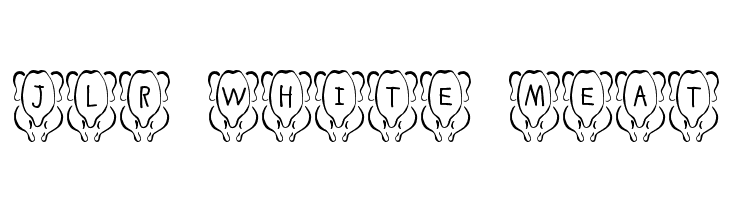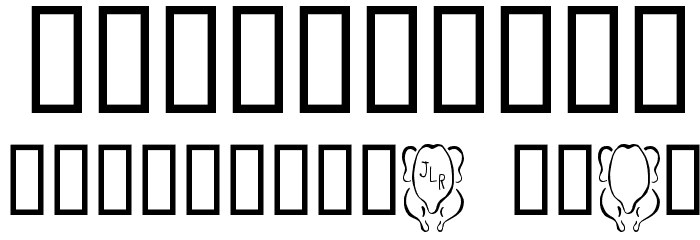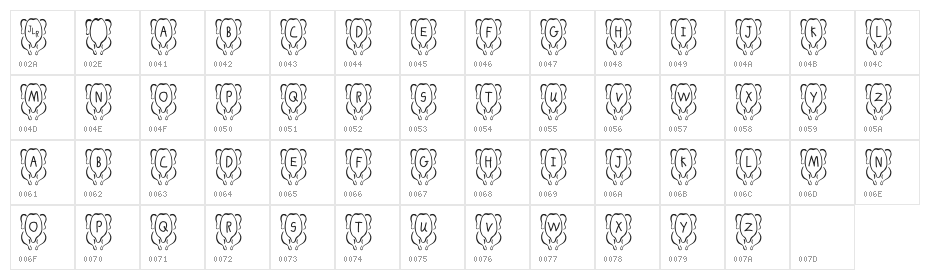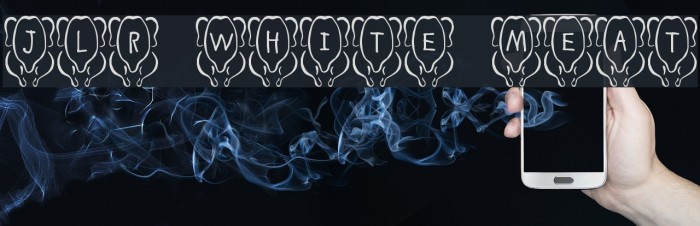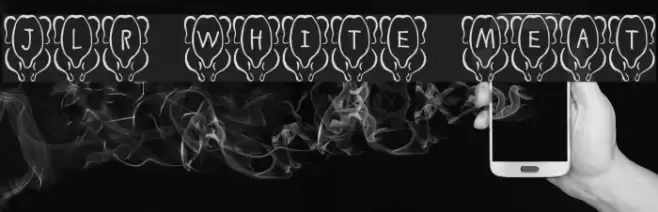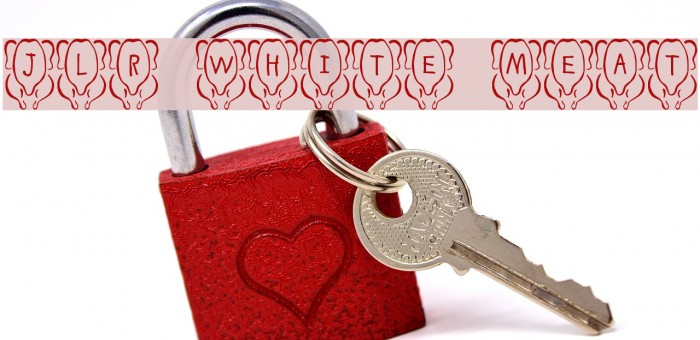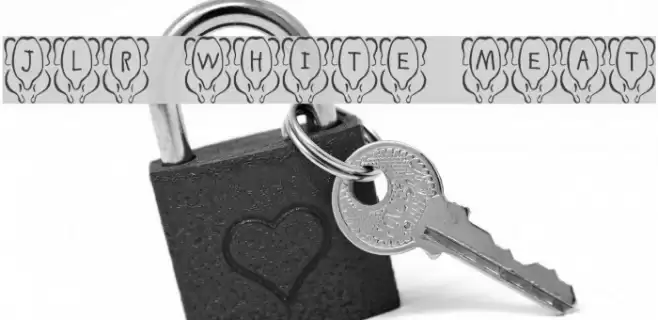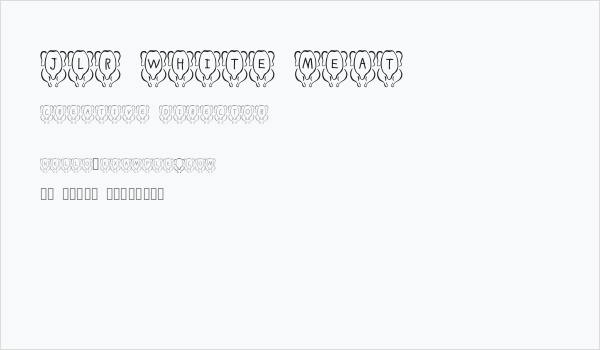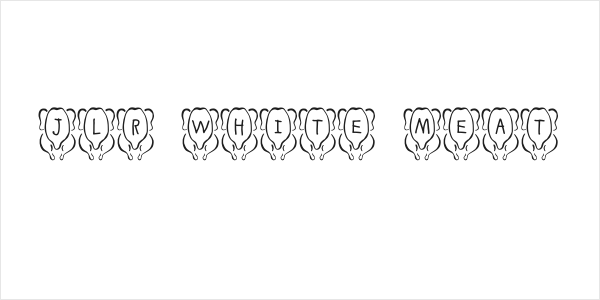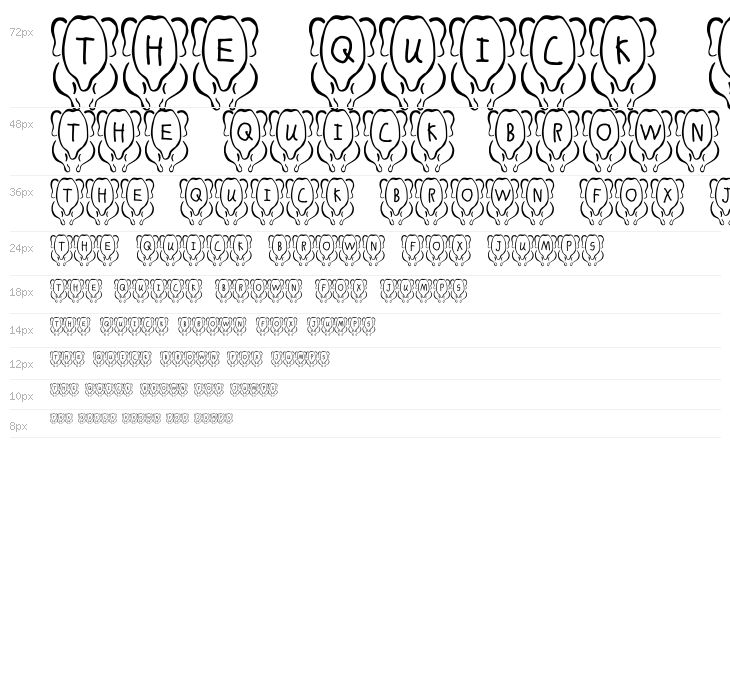
JLR White Meat Font
JLR White Meat Description
This decorative font features uppercase and lowercase letters encased within a stylized meat-like outline, creating a unique and playful appearance. The design is consistent across all characters, providing a cohesive look. The font lacks traditional numerals and special characters, instead using rectangular placeholders. Its whimsical style makes it suitable for creative projects that require a bold and unconventional aesthetic.
| Use Case | Logos, Posters, Creative Projects |
| Proposed Projects | Ideal for themed party invitations, playful branding, or creative posters that require a distinctive and humorous touch. |